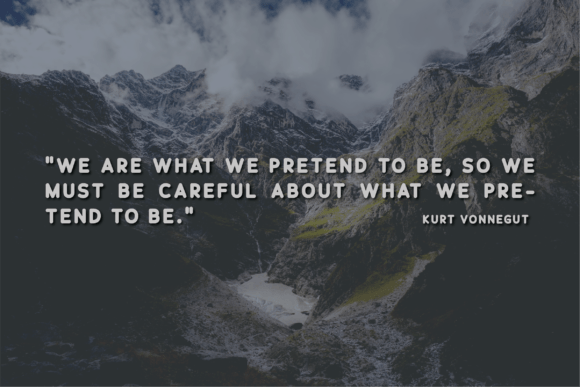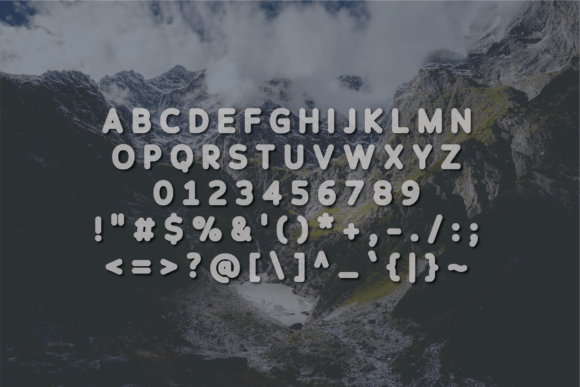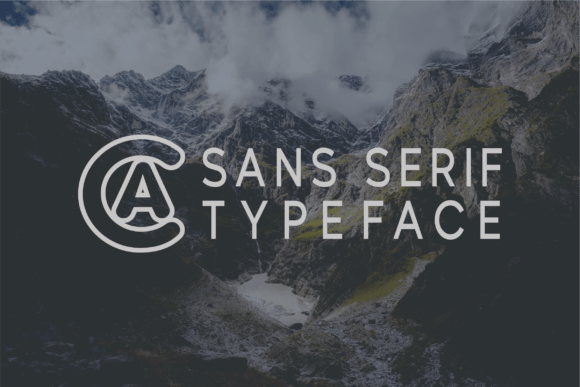
The Ultimate Font for Creative Projects: A Deep Dive into Cromentone
I’ll never forget the time I was working on a wedding invitation design project, and my client asked for a font that was both modern and classy. I scoured the internet, trying out font after font, but nothing seemed to fit the bill. That was until I stumbled upon Cromentone. This versatile, sans serif font has been a game-changer for my design projects, and I’m excited to share its awesomeness with you! 😊
An Honest Review of Cromentone
What I Love About Cromentone ✨
- ✅ Modern and sleek design: Cromentone has a fresh, contemporary feel that’s perfect for logos, weddings, invitations, and more.
- ✅ Highly versatile: This font can be used for a wide range of projects, from print materials like magazines and advertisements to digital applications.
- ✅ Easy to read: Cromentone’s clean lines and simple design make it easy to read, even at small font sizes.
- ✅ OpenType features: This font comes with a range of OpenType features, including glyphs and stylistic alternates, that allow for endless creativity.
While Cromentone is an amazing font, it’s not perfect. Here are a few things to keep in mind:
- 🤔 Limited language support: Cromentone currently supports a limited number of languages, so make sure to check the font’s specifications before using it for a project that requires a specific language.
- 🤔 No italic version: Unfortunately, Cromentone doesn’t come with an italic version, which may limit its use in certain design applications.
The Story Behind Cromentone
Cromentone was designed by a team of typographers who wanted to create a font that was both modern and timeless. Inspired by the simplicity and elegance of sans serif fonts, they crafted Cromentone to be a versatile and highly legible font that’s perfect for a wide range of design applications.
| Author | A Christie |
Q: Is Cromentone suitable for body text?
A: While Cromentone is a beautiful font, it’s best suited for headlines and short-form text. For body text, you may want to consider a font with more traditional typography.